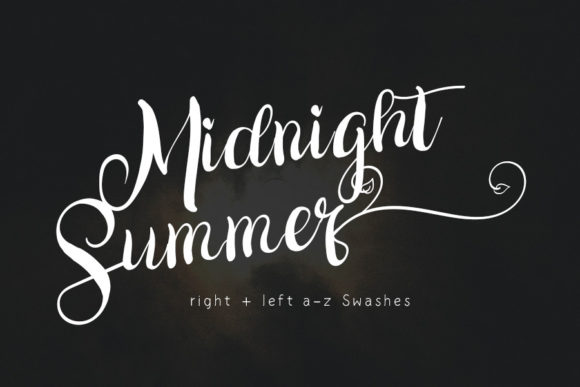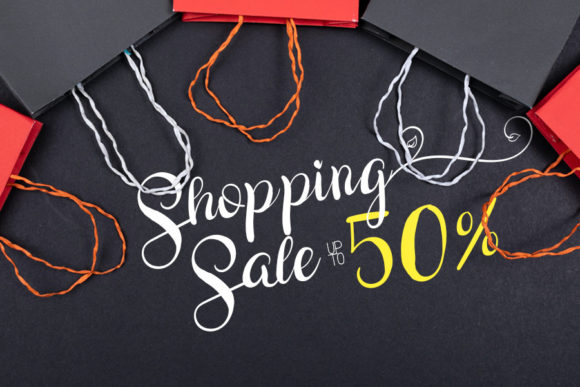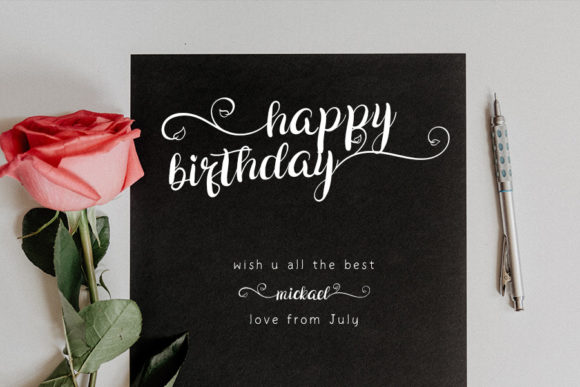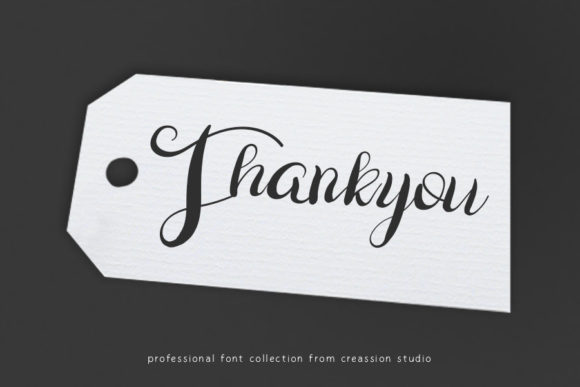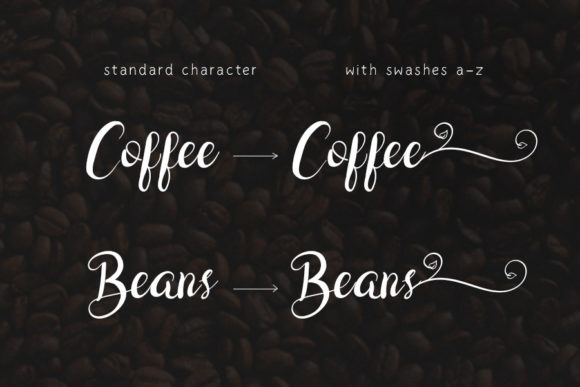
Introduction to Luxuriest Font
Have you ever stared at a blank canvas, trying to find the perfect font to bring your creative project to life? It’s a moment we’ve all experienced – the blank page staring back at us, waiting for that spark of inspiration. For designers, finding the right font can be the difference between a beautiful, high-quality design and a mediocre one.
That’s where the Luxuriest Font comes in – a charming and sweet handwriting font that exudes elegance and class. This beautiful design resource is perfect for adding a touch of sophistication to your projects, whether you’re working on a brochure, a logo, or even a social media graphic.
What sets the Luxuriest Font apart is its PUA encoding, which allows for seamless access to all the glyphs and swashes, giving you complete control over your design. And the best part? It’s available for free download, making it an invaluable resource for designers of all levels.
Key Features of Luxuriest Font
- High-quality design for creative projects, perfect for luxury brands and high-end advertisements.
- Designed to be scalable, with a resolution of up to 300 DPI, ensuring crisp and clear typography in any size.
- Unique characteristics include intricate details and elegant lines, making it perfect for creating a sense of luxury and sophistication.
- Includes a comprehensive character set, including uppercase and lowercase letters, numbers, and special characters, for complete typographic flexibility.
Honest Review: Luxuriest Font
I recently had the chance to work with the Luxuriest Font, and I must say, it’s a great addition to any designer’s toolkit. This font is perfect for high-end creative projects where a touch of elegance is required. ✨
- High-quality design: The Luxuriest Font is designed with precision and care, making it a great choice for designers looking for a professional finish.
- Transparent background: This feature allows designers to easily place the text over any background, making it a versatile design resource.
However, I did encounter a few limitations during my review. ⚠️
- Limited font sizes: The Luxuriest Font is only available in a limited range of font sizes, which may not be ideal for designers who need more flexibility.
- No bold or italic options: The font only comes in regular style, which may not be suitable for designers who need to emphasize certain text.
Overall, I’m impressed with the Luxuriest Font, and I would recommend it to designers looking for a high-quality, elegant font for their creative projects. With a few tweaks to address the limitations, I believe this font has the potential to be a top design resource.
Tips for Getting the Most Out of Luxuriest Font
To get the most out of Luxuriest Font, use it on a transparent background to create a clean and elegant design. You can also experiment with different font sizes and colors to add visual interest to your project.
The Luxuriest Font is ideal for use in branding materials, such as logos and business cards, as well as in creative projects like infographics and brochures. Its high-quality design and versatility make it a valuable resource for designers and artists.